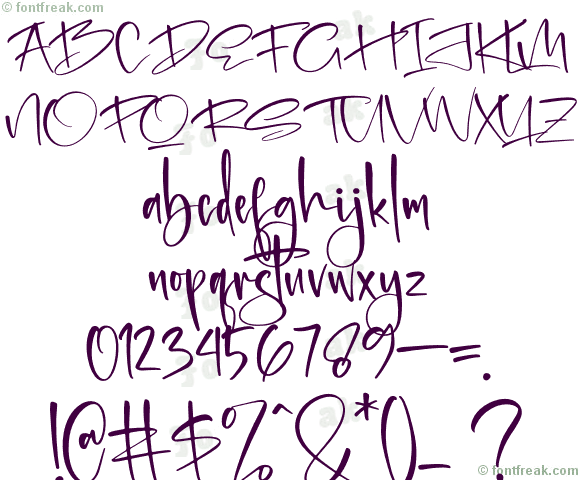
Freestyle Lettering
Freestyle Lettering Italic
About Freestyle Lettering
Freestyle Lettering by Perspectype Studio is a captivating display font that falls into the script category. Released in 2021 as freeware, this font is designed to add a personal touch to any project. The visual characteristics of Freestyle Lettering are striking, featuring fluid, sweeping strokes that create a dynamic yet elegant appearance. The varying stroke weights and moderate contrast give it a sense of movement, while the generous spacing enhances readability without sacrificing style. Decorative elements, including playful swashes and loops, further elevate its artistic flair, making it a standout choice for creative applications.
This versatile font is perfect for a range of use cases. It is especially suited for wedding invitations, where its romantic and whimsical style can set the tone for a special day. Additionally, Freestyle Lettering is ideal for crafting eye-catching movie posters, as it adds an element of excitement and intrigue. Restaurant menus can also benefit from this font's unique style, helping to create an inviting atmosphere that reflects the establishment's character. Content creators and social media marketers will find it useful for designing engaging graphics that capture audience attention, making it a valuable asset in any digital toolkit.
Targeted towards graphic designers, small business owners, and content creators, Freestyle Lettering offers a fresh, contemporary aesthetic that appeals to those looking to make a statement. Its distinctive style stands out in a crowded marketplace, allowing users to express their individuality and creativity. The Freestyle Lettering font free download makes it accessible for all, enabling anyone to elevate their designs with a touch of artistic flair. With its unique combination of elegance and playfulness, Freestyle Lettering is a must-have for those who appreciate the beauty of handwritten typography.